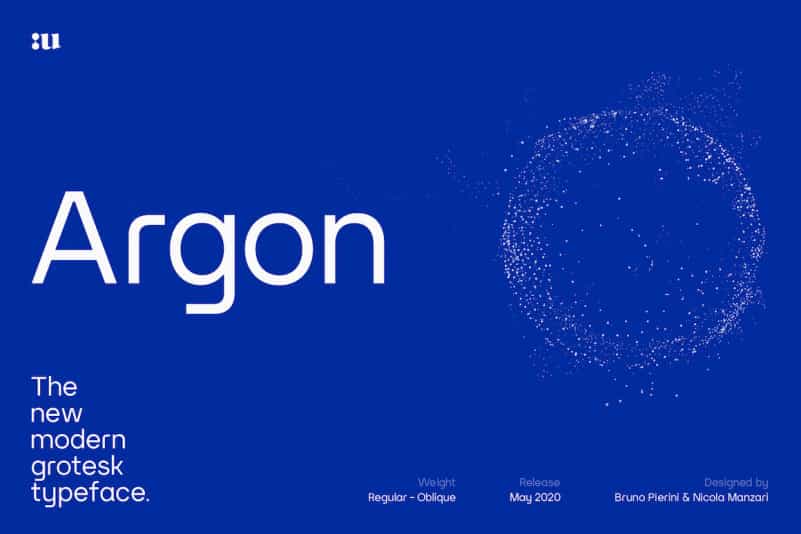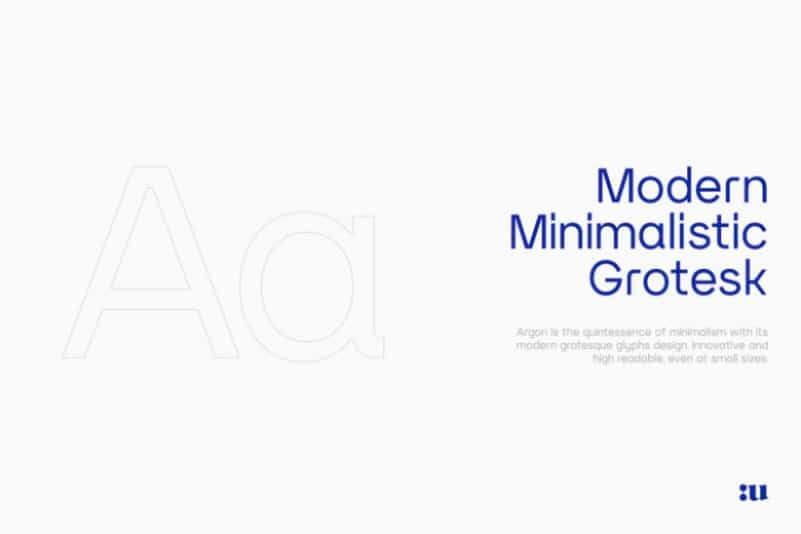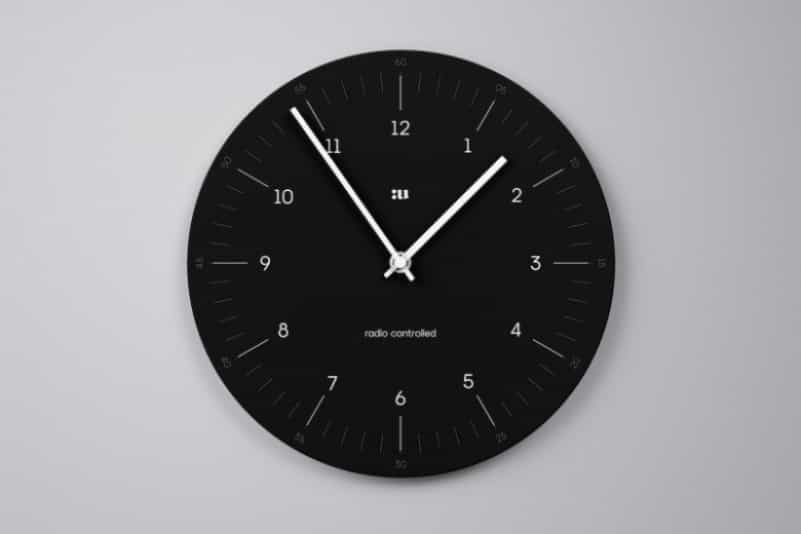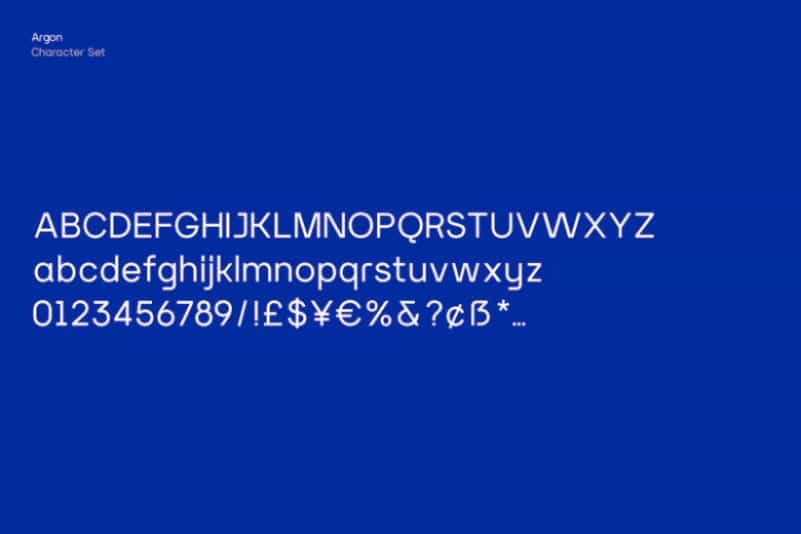
“Argon Font” – a functional modern-grotesk sans serif typeface, designed to reflect the aesthetics of the 1950s Swiss rationalism. The mono-linear design of the solid and the mix of rounded and sharp curves result in a modern rendition of the classic grotesque design and is legible even at smaller sizes.